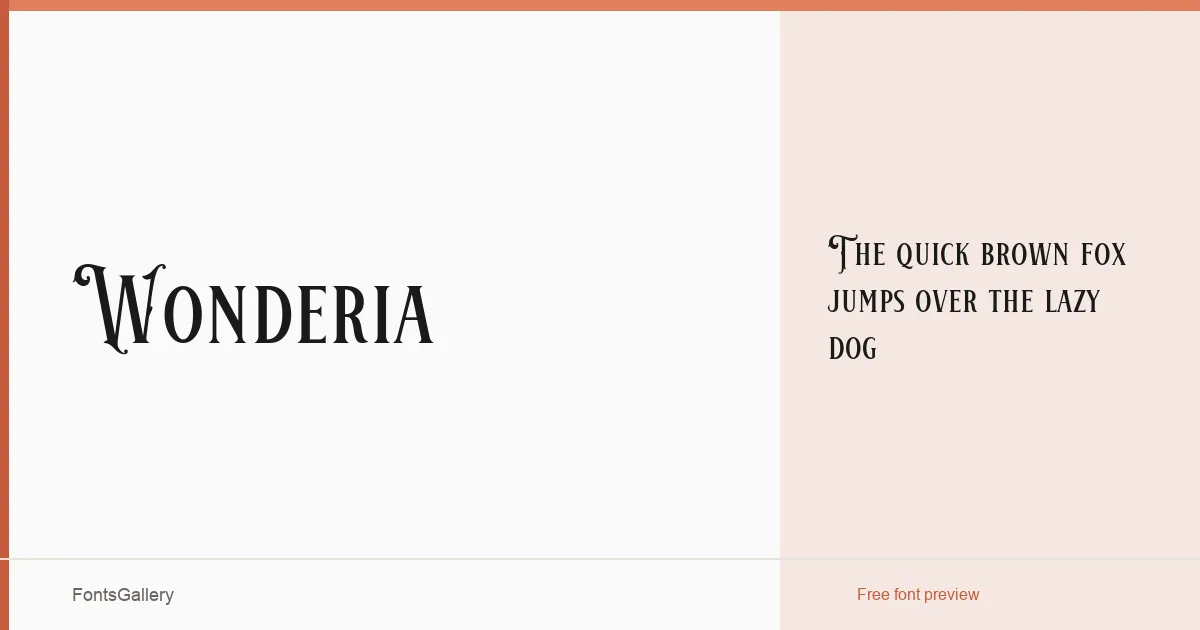
About Wonderia Font
Wonderia is a serif typeface crafted by Keithzo, designed to evoke elegance, vintage charm, and a sense of timeless luxury. Its classic sensibility makes it a distinguished choice for projects that demand sophistication and refinement. This typeface stands as a testament to Keithzo's dedication to blending heritage-inspired aesthetics with versatile modern application.
Wonderia's letterforms embrace a classic serif structure enriched with elegant, vintage detailing that exudes luxury at every stroke. The typeface carries a refined, editorial quality, with carefully balanced proportions that feel both stately and graceful. Its classic character makes each letter feel intentional and polished, lending an air of prestige to any composition.
Wonderia is ideally suited for logos, posters, wedding stationery, branding projects, and magazine layouts where a luxurious and classic impression is essential. Its elegant presence elevates high-end branding and editorial designs alike, making it a natural fit for premium visual identities. For a harmonious typographic pairing, consider combining Wonderia with the clean neutrality of Helvetica or the complementary style of Ballmain.